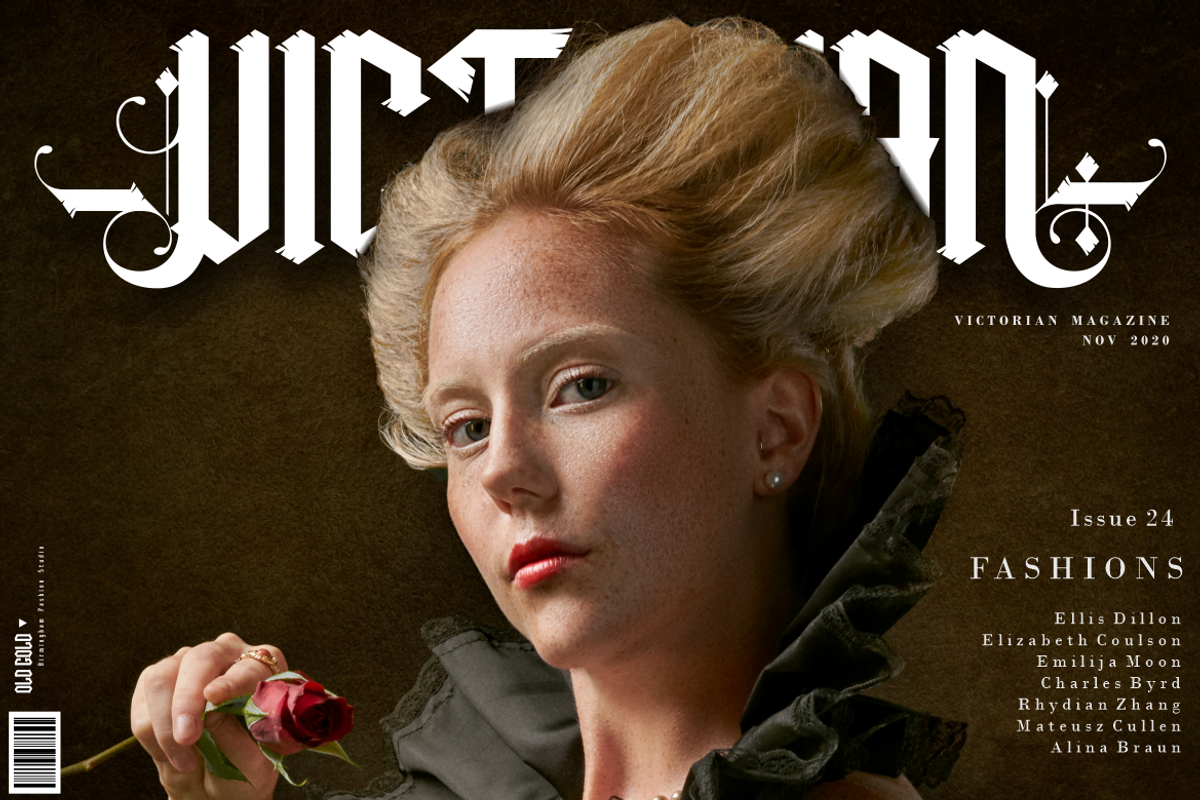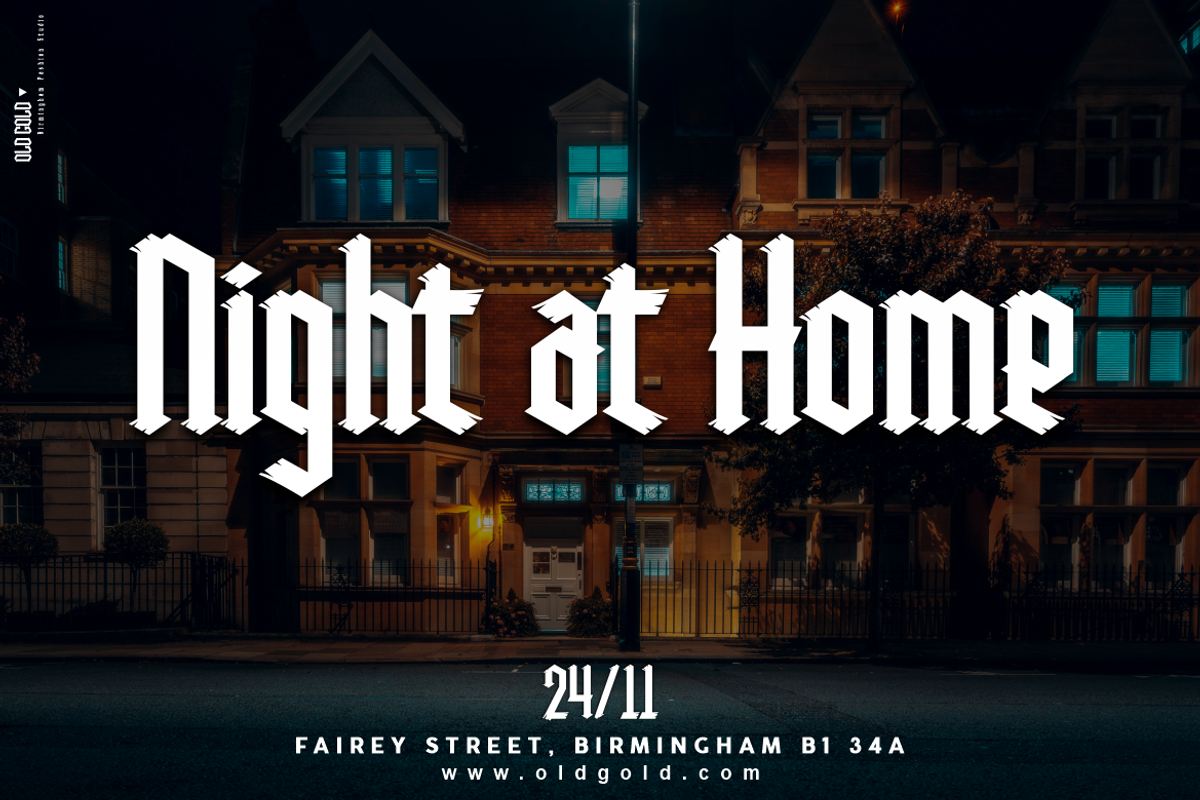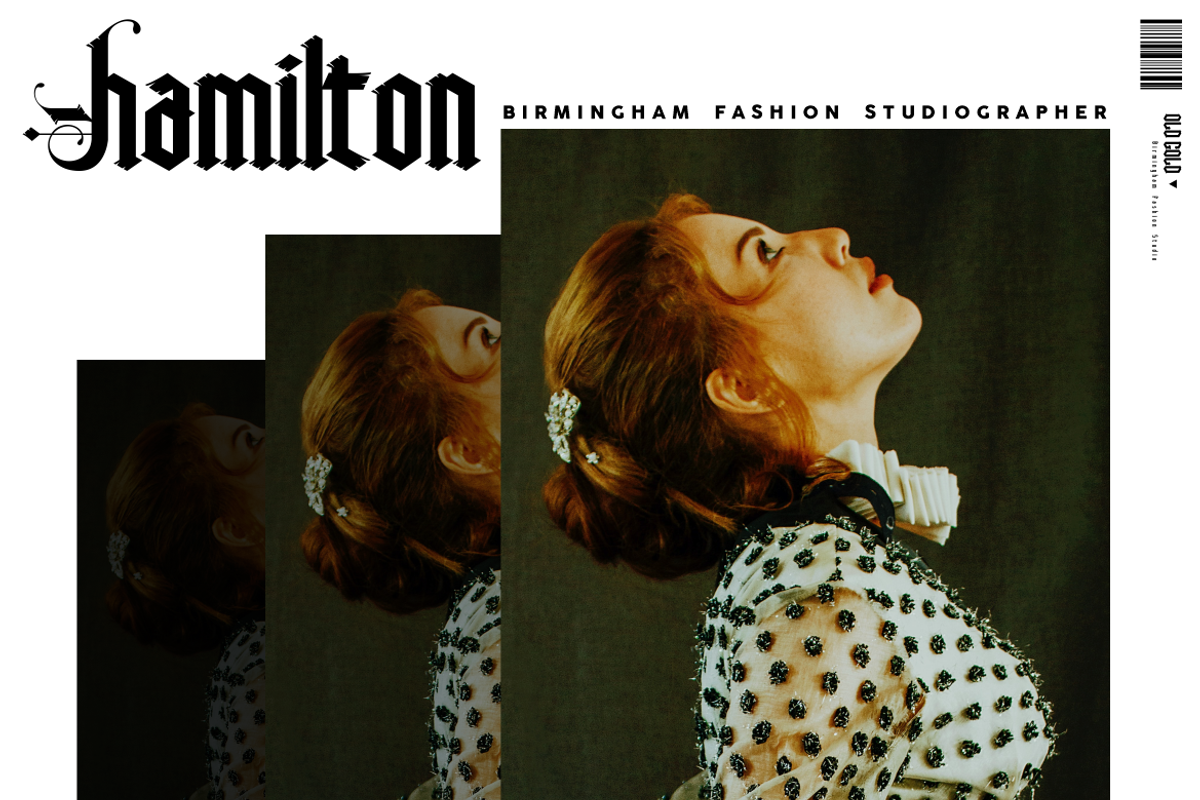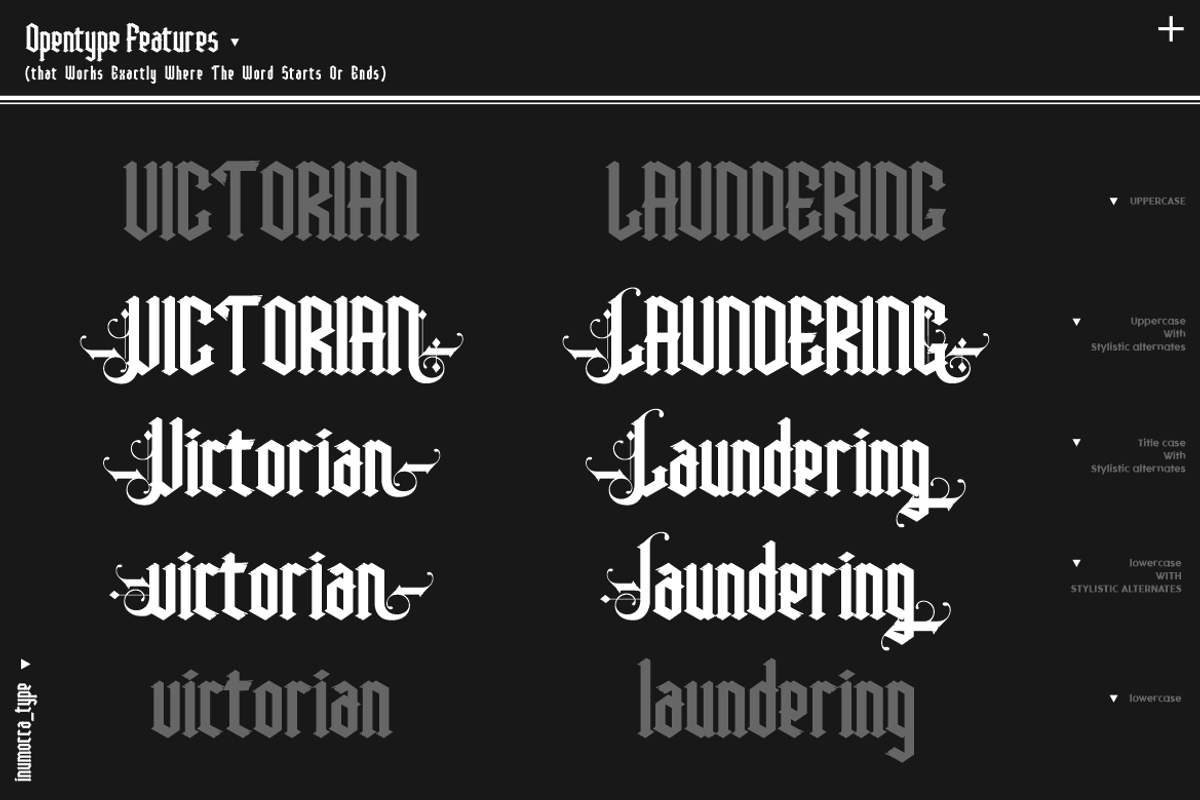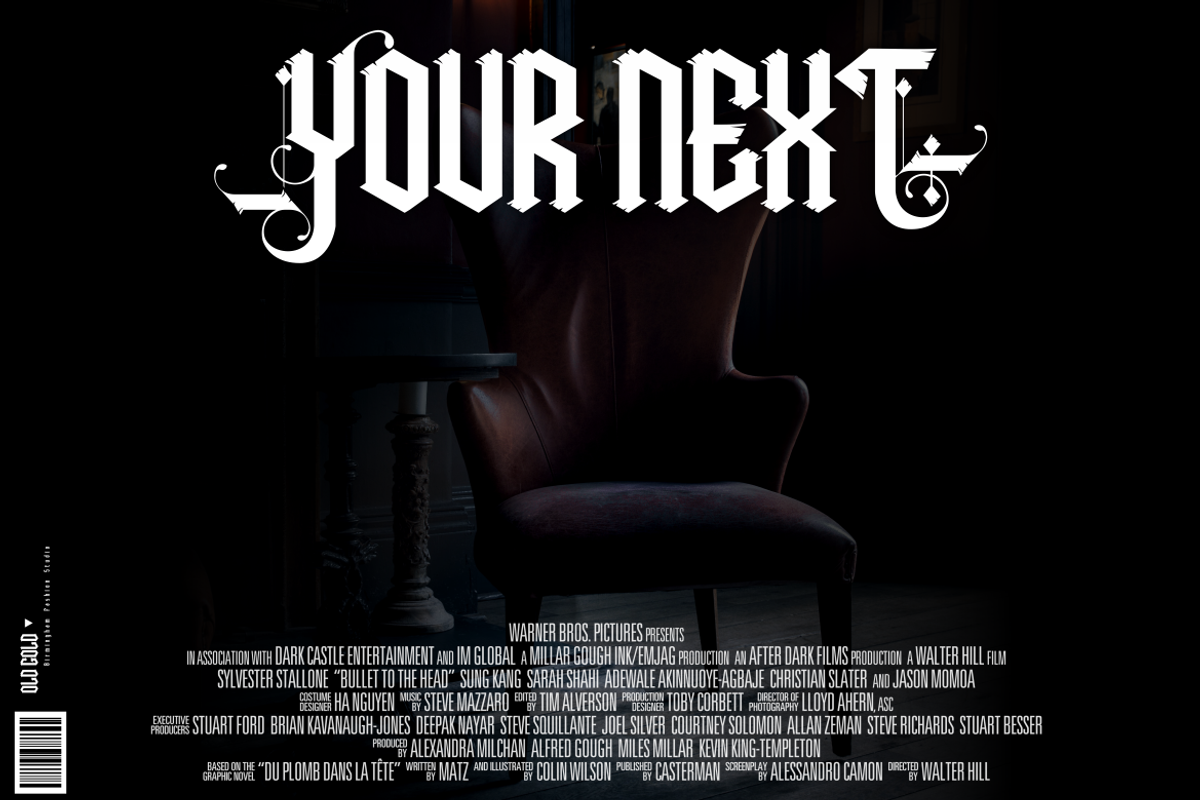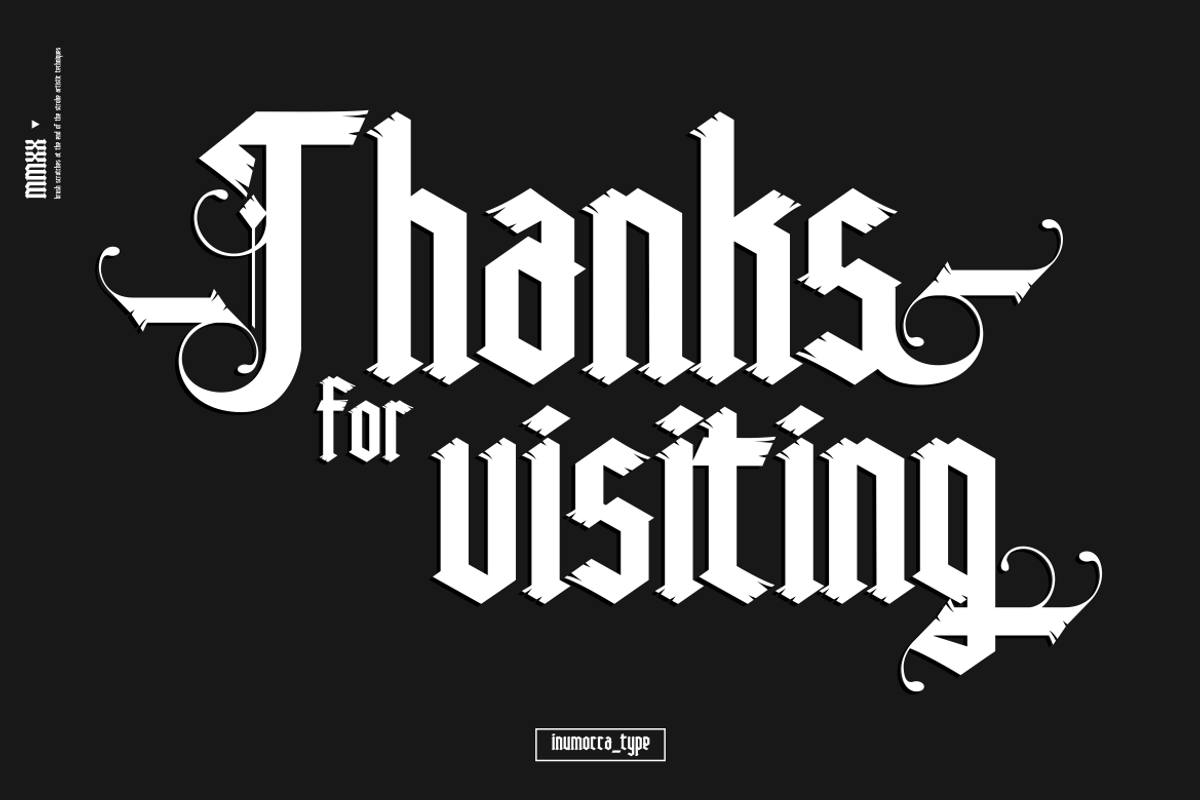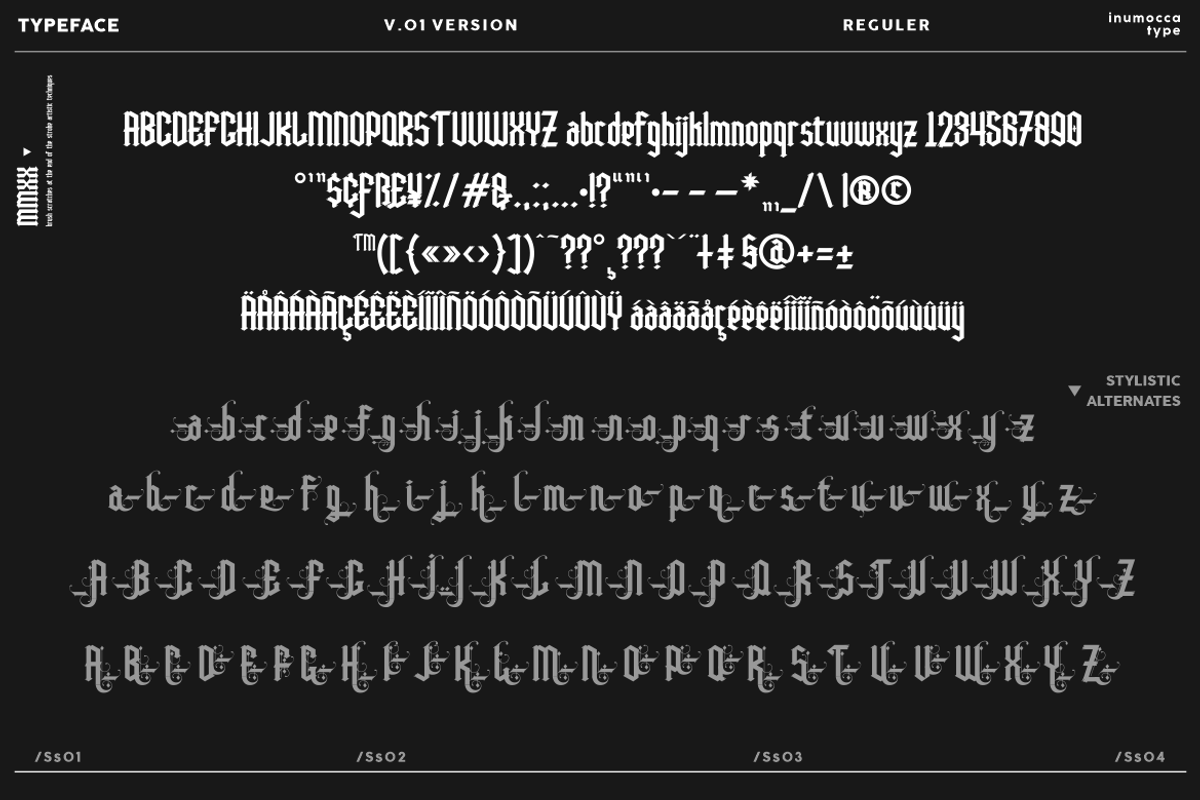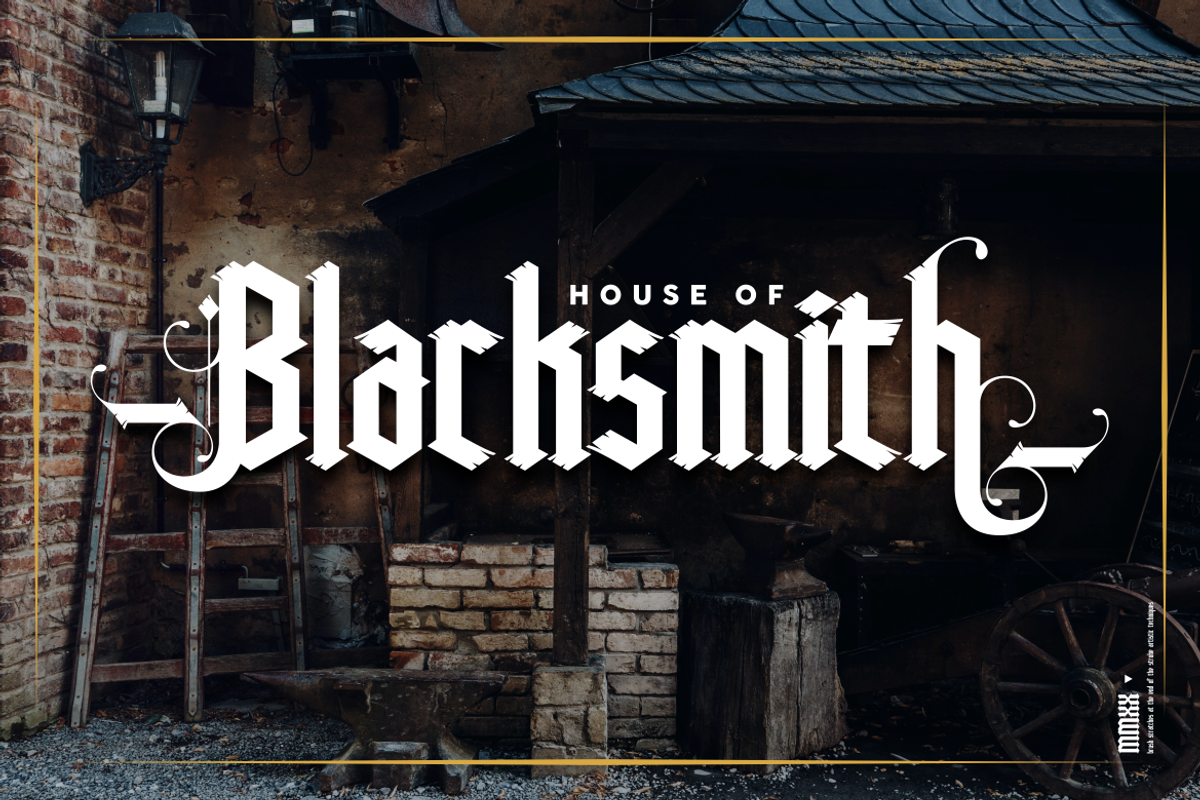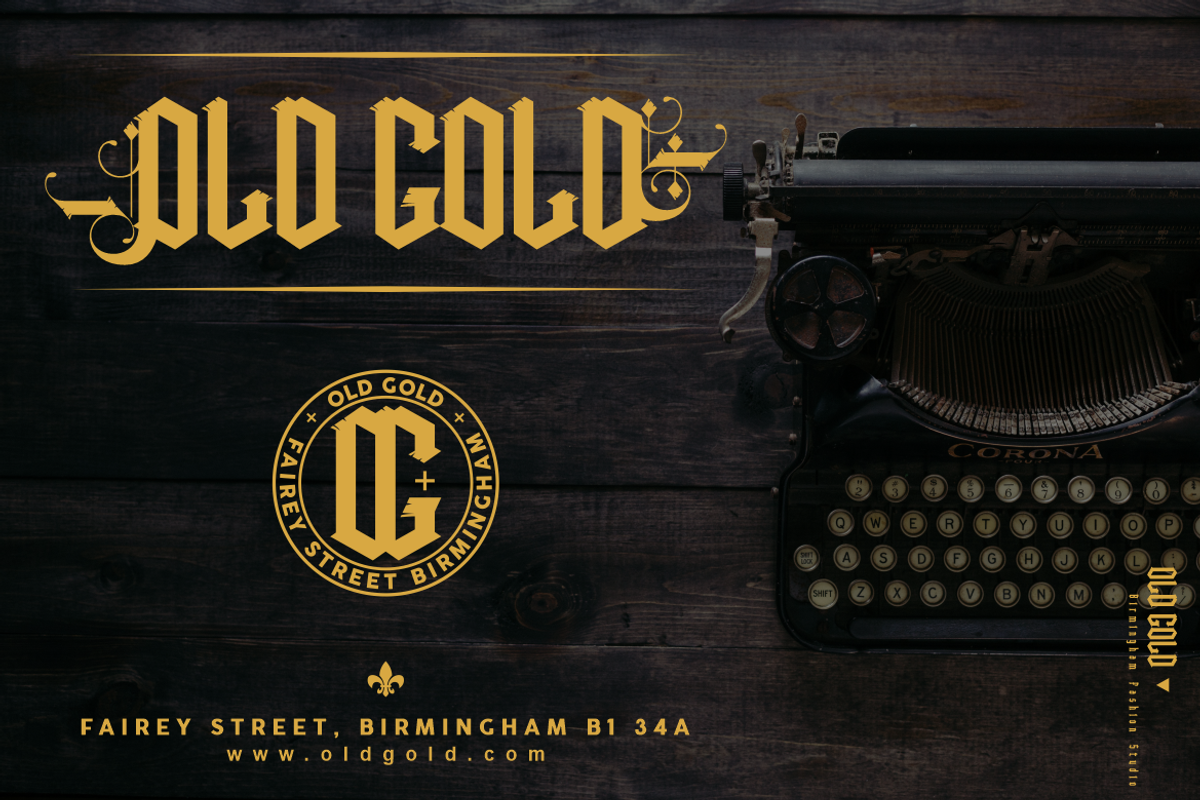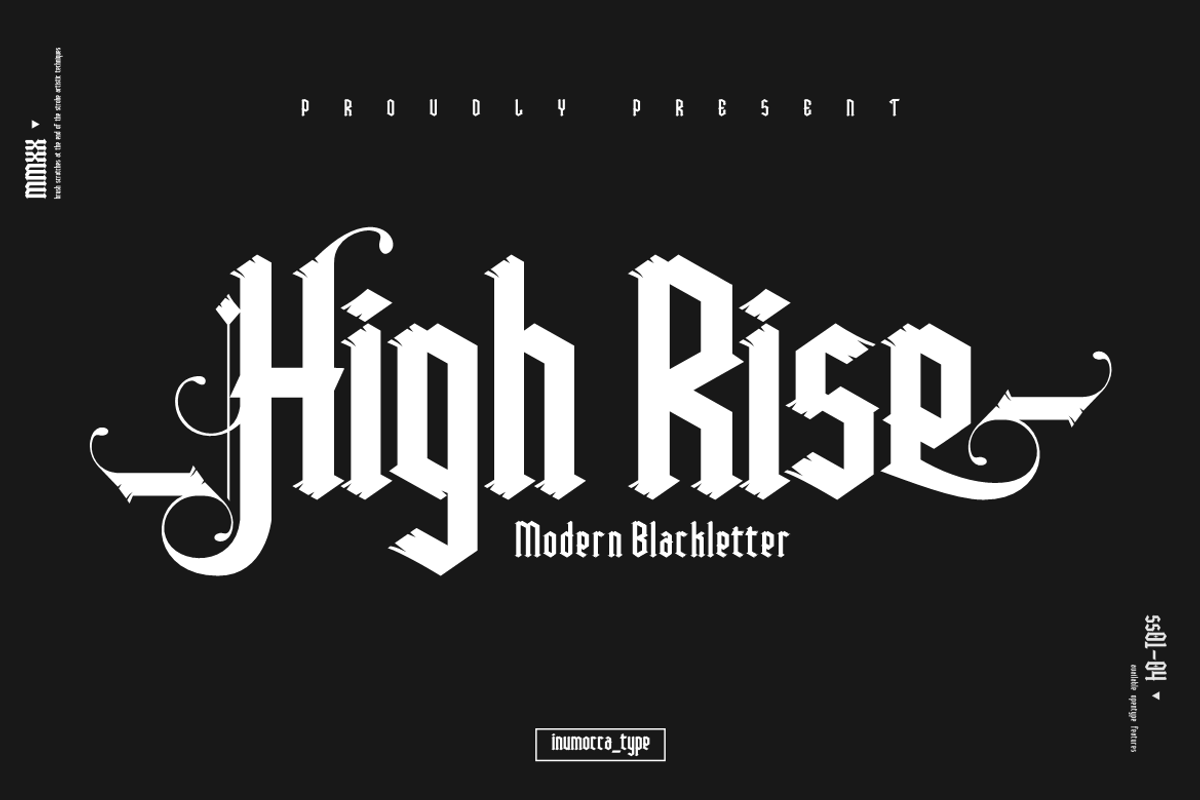
High Rise
High Rise a Modern Blackletter with brush scratches at the end of the stroke artistic techniques and also available opentype features, that works exactly where the word starts or ends. so they are look best used for Names,Initials, Brand names, logotype and Any more
High Rise include
- Unique glyphs
- Multilingual Characters
- UPPERCASE
- Numeric
- Symbol
- Punctuation Character
- ss01 , ss02, ss03, ss04